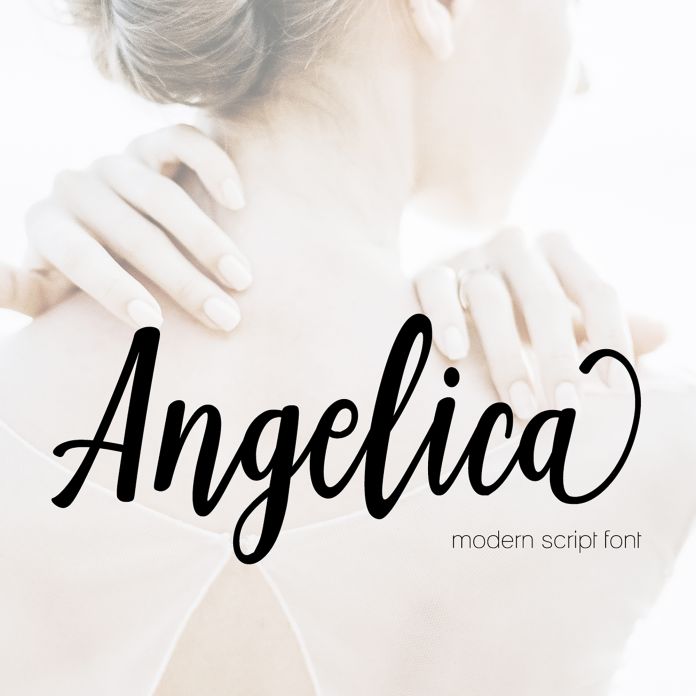
Perfect modern calligraphy/handlettering font. Font includes international characters, flourish and swirl options for each letter. Perfect for your designs and projects.